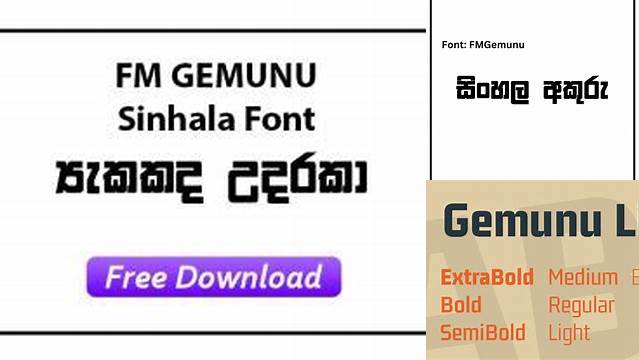
Get FM Gemunu Font Free: Your Ultimate Guide
Hey everyone! Are you on the hunt for the FM Gemunu font? Well, you're in the right place! We're diving deep into everything about the FM Gemunu font free download, where you can find it, how to use it, and a whole lot more. Finding the perfect font can be a game-changer for any project, whether it's a cool poster, a website, or even just sprucing up your documents. The FM Gemunu font is known for its clean lines and readability, making it a fantastic choice for a wide range of design needs. So, buckle up, because we're about to embark on a journey to uncover everything you need to know about snagging that FM Gemunu font free download and putting it to work for you. Let's get started and explore all the options out there to get you the best result possible.
Understanding the FM Gemunu Font: A Deep Dive
Alright guys, before we jump into the FM Gemunu font free download options, let's get to know this font a little better. The FM Gemunu font isn't just any typeface; it's a design with personality. It's the brainchild of a talented designer, and it's specifically crafted to be super readable and versatile. You'll often find it used in both digital and print media, so it’s adaptable for numerous different situations. The font typically includes a variety of weights and styles, giving you the flexibility to create designs that really pop. Whether you're aiming for a sleek and modern look or something a bit more traditional, the FM Gemunu font can adapt. This adaptability is a key part of its appeal! Understanding the nuances of the FM Gemunu font – like its character design, kerning, and overall aesthetic – is super important before you start using it. This knowledge will help you pick the right weight and style for your project, and maximize the impact of your design. Choosing the correct font weight can significantly change the look of the text and overall message, so consider that. Consider how it will appear in different sizes and across various platforms, to ensure it looks just right. This will ensure the best possible result. The FM Gemunu font provides a unique and versatile aesthetic.
FM Gemunu Font Features and Characteristics
Let’s break down what makes the FM Gemunu font special, shall we? First off, it's designed for readability, meaning its letterforms are super clear and easy on the eyes, which makes it perfect for extended reading. The clean lines and open counters make it a joy to read, even at smaller sizes. This clarity makes it ideal for body text in books, websites, and documents. Secondly, the FM Gemunu font usually comes in a range of weights, from light to bold, and sometimes even italics, giving you a ton of options to play with. This versatility allows you to create visual hierarchies and emphasize important text. Also, the design of the characters is often carefully crafted to create a sense of harmony and balance. It can be used in both headings and in body text, because it provides a cohesive feel across the design. The font is also designed to look good on both screens and in print. This versatility makes it a great choice for projects that need to work well in different formats. It's designed for both professional and creative use. So, when you're looking at the FM Gemunu font free download options, keep these features in mind to make sure it’s the right fit for your project needs and goals. It’s all about getting a font that does what you need it to do.
FM Gemunu Font's Usage in Design
So, how do designers actually use the FM Gemunu font? Its versatility makes it a favorite in numerous areas! Because of its readability, it's a top choice for body text in publications, websites, and app interfaces, where clarity is critical. It excels at providing a smooth reading experience. But that doesn’t mean it's limited to body text! It can also be effectively used in headlines and titles, especially when you want a clean, modern look. Designers often pick different weights of FM Gemunu font to create contrast and visual interest in their designs. For instance, a bold weight might be used for a heading, while a regular weight is used for the body text. The FM Gemunu font also works really well in branding. Its clean lines and professional appearance make it great for logos, marketing materials, and other brand communications. Consider how it is used in a brand's overall visual identity. Whether it's a corporate brochure, a website, or even a social media post, the FM Gemunu font can help create a cohesive look. It can also be paired with other fonts to create a complete design system. Ultimately, when you’re looking at the FM Gemunu font free download, think about the project goals and how it can help to achieve the best results. This will create the most impact.
Frequently Asked Questions About FM Gemunu Font